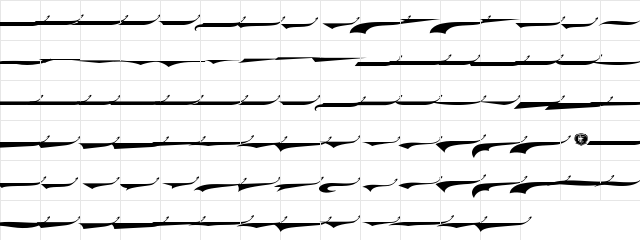
SportScript Swashes Medium
Design Context for SportScript Swashes Typeface
SportScript Swashes brings high-energy athletic personality to the page — its confident, muscular forms are built for impact.
A natural choice for gym brands, fantasy sports, jersey lettering, and action-driven headlines.
Font Pairing: Use alongside a condensed or geometric sans for supporting copy — keep the pairing bold, functional, and free of ornament.
Pro Tip: Use SportScript Swashes in all-caps headlines where its athletic energy can fully express itself. Pair with a solid, simple sans for supporting text.